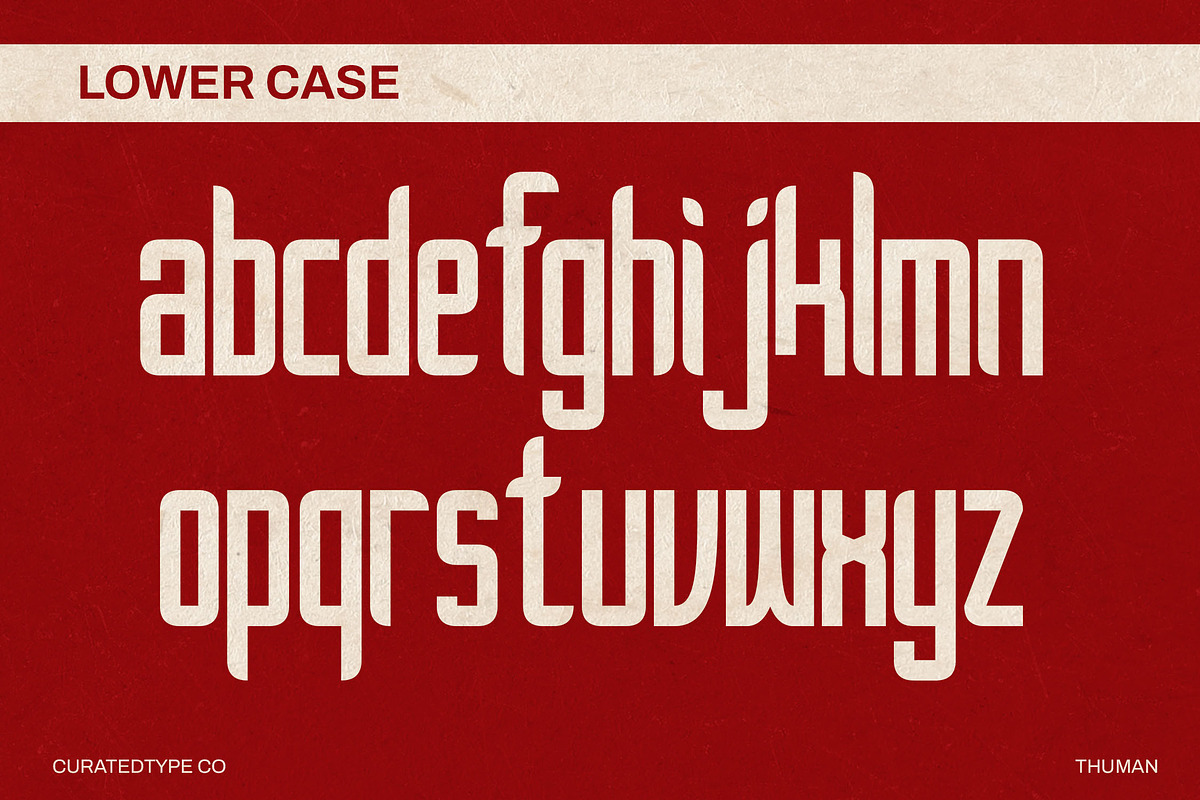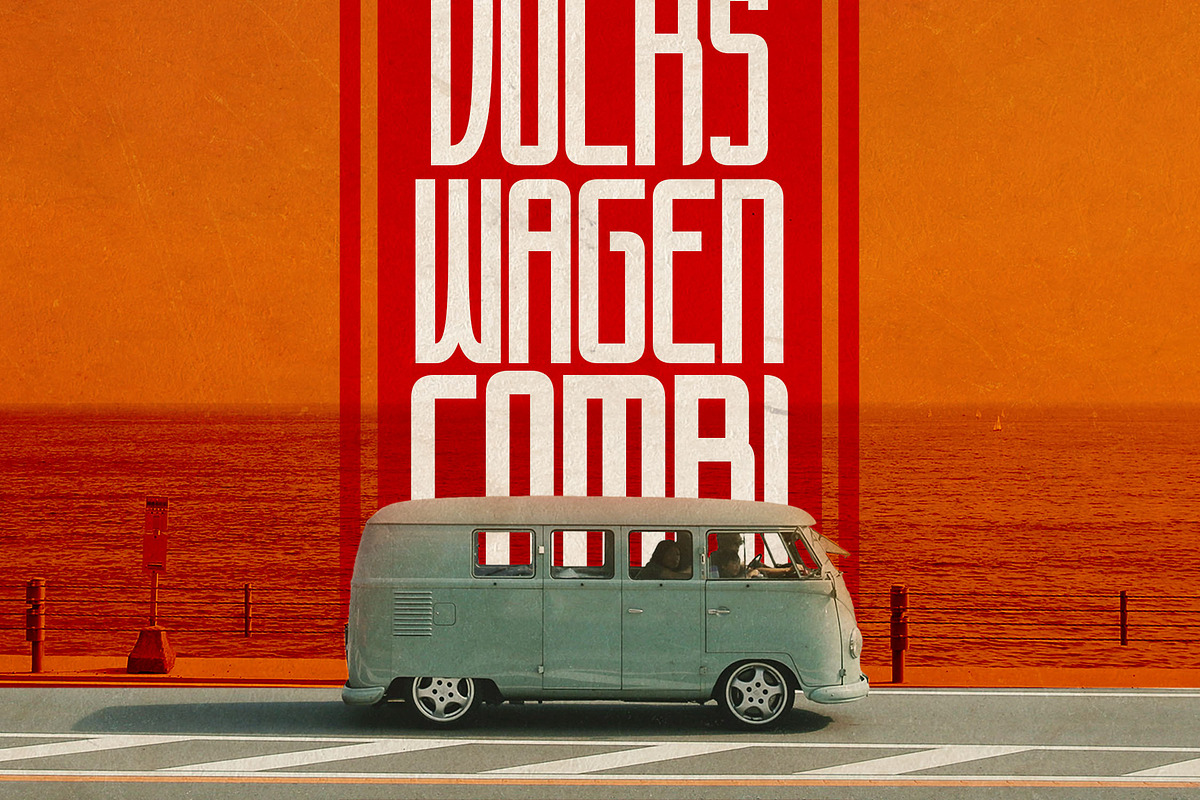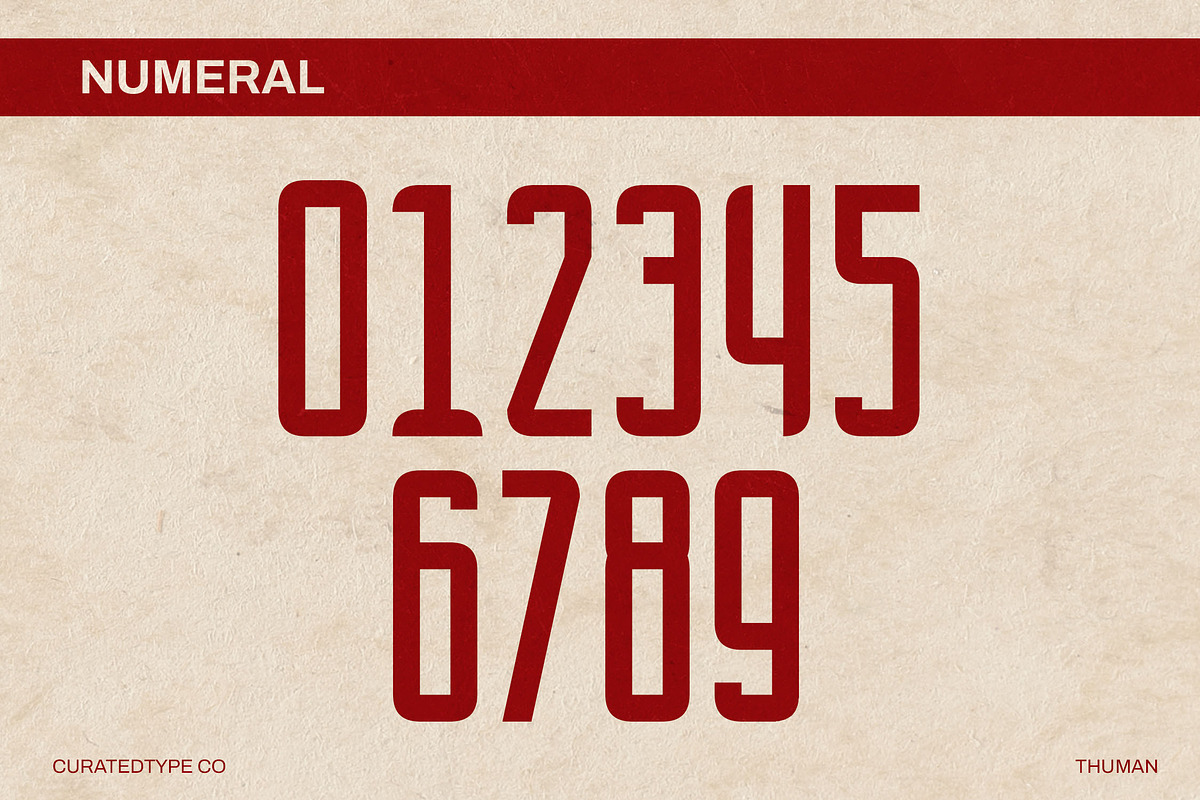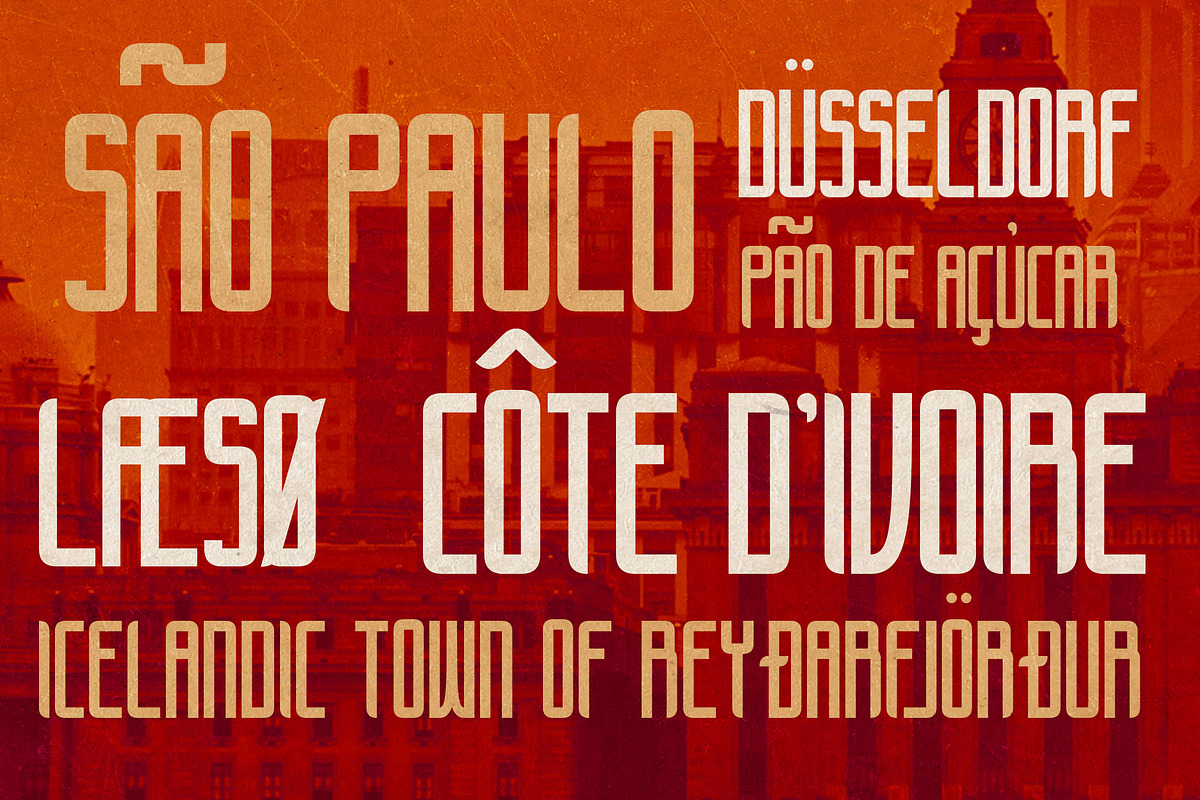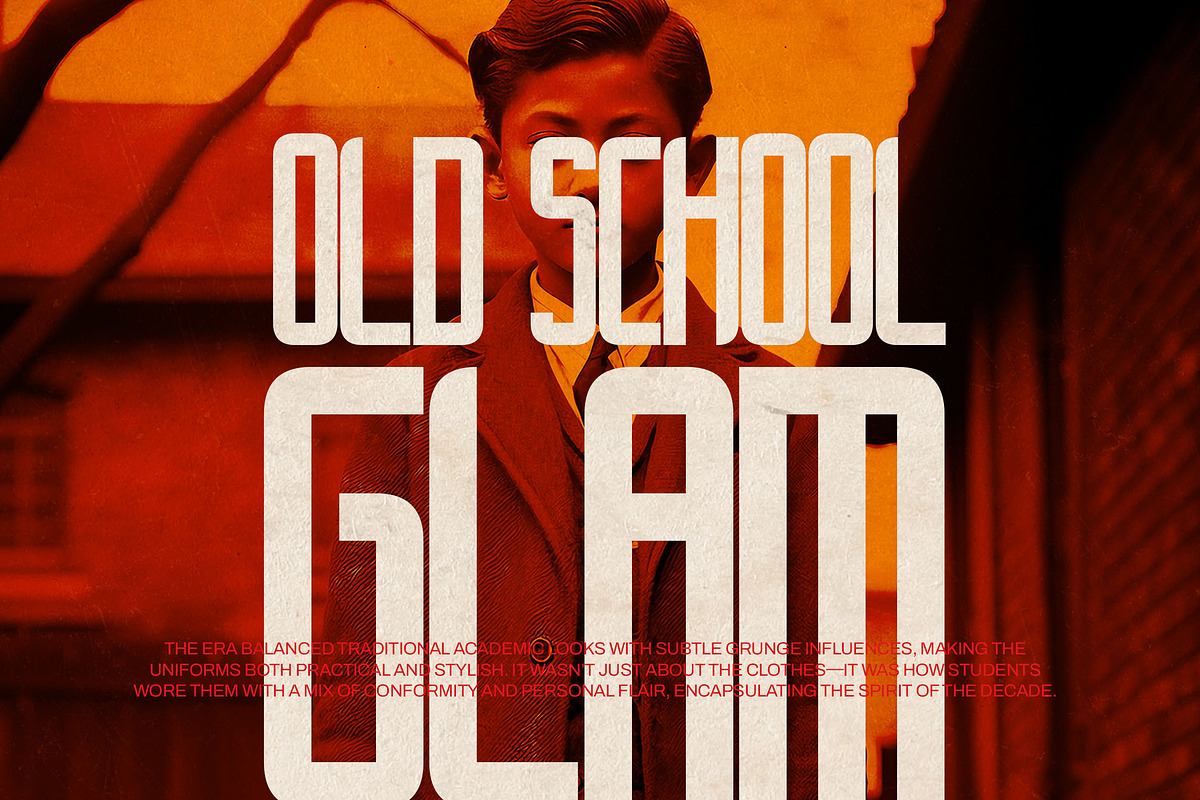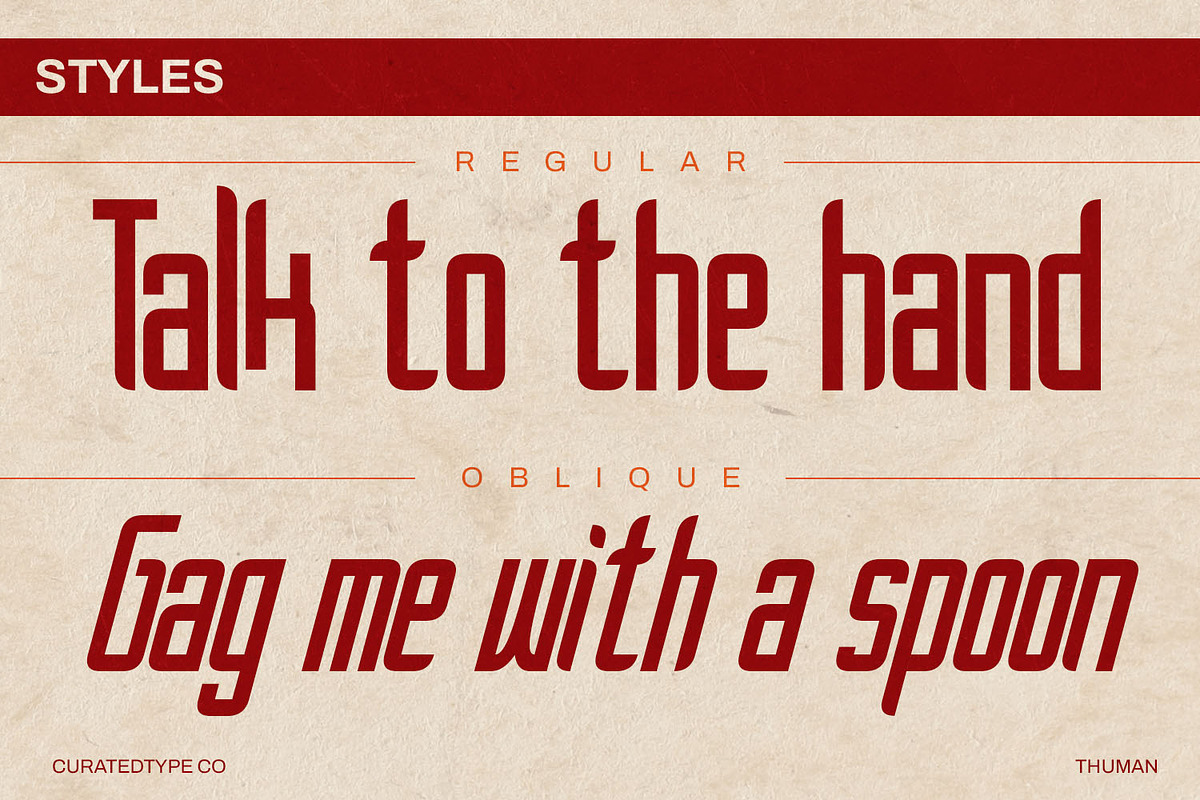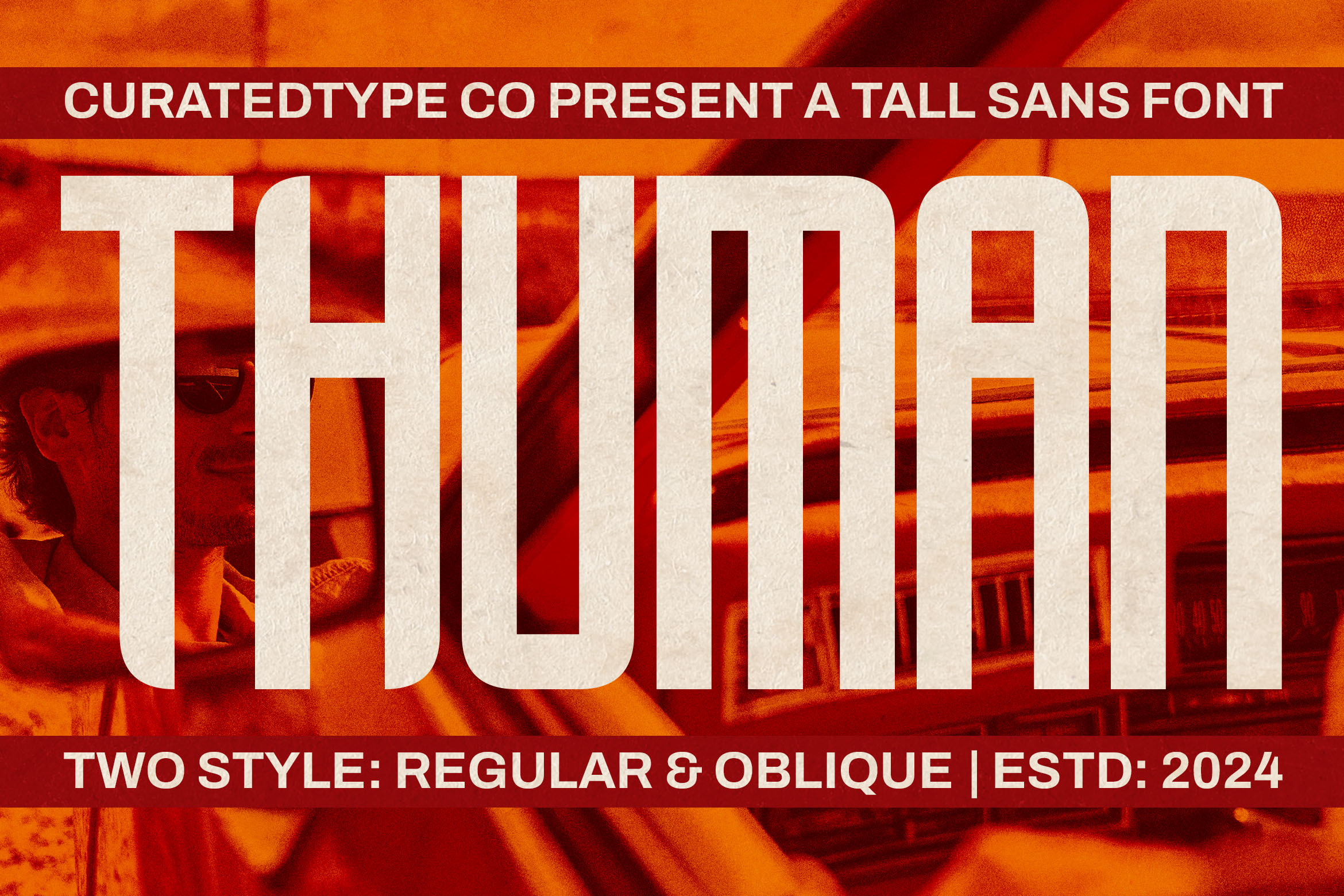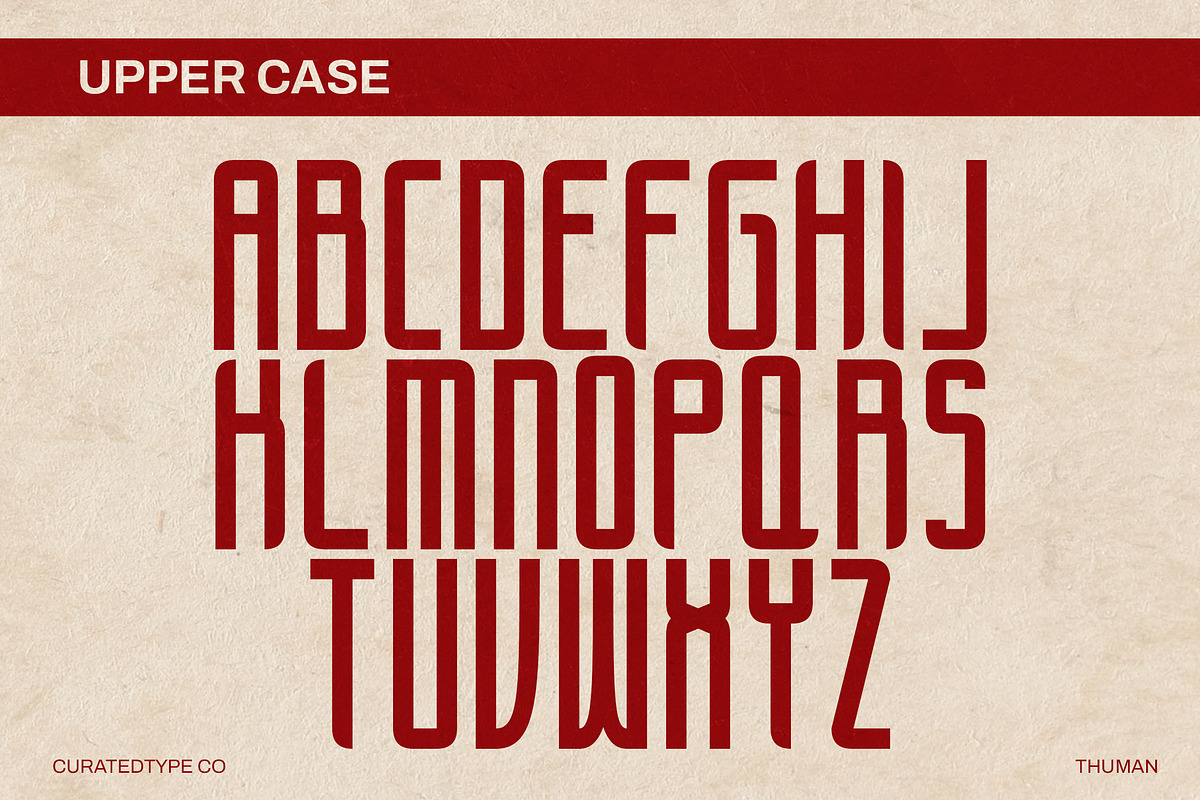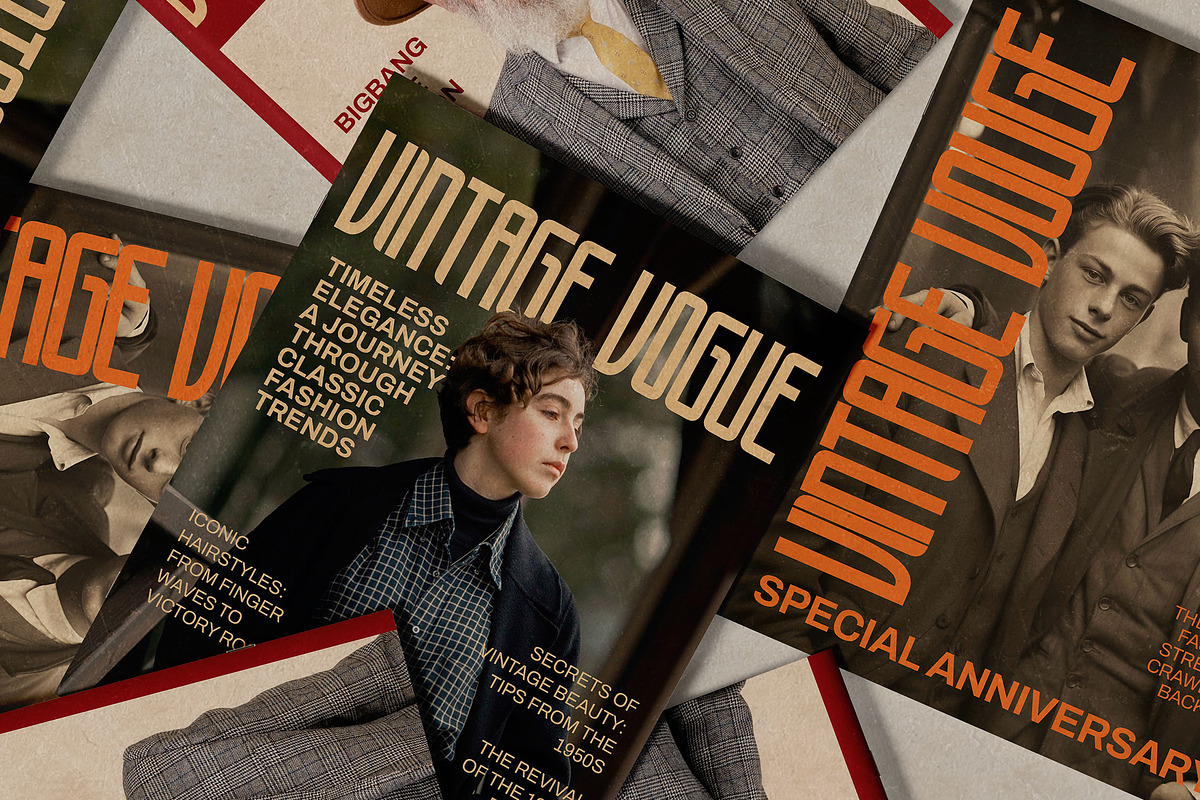
Thuman - Tall Display Font
Introducing Thuman, a tall font that blends boldness with subtle elegance. With both Regular and Oblique styles, Thuman offers a clean, geometric design that stands out without overwhelming. The Regular style delivers clarity and impact, while the Oblique style adds a dynamic flair, making it perfect for a variety of design needs.
Thuman's tall, narrow characters ensure legibility and style in both print and digital media. Whether you're working on branding, headlines, or creative layouts, Thuman brings a contemporary sophistication to any project.